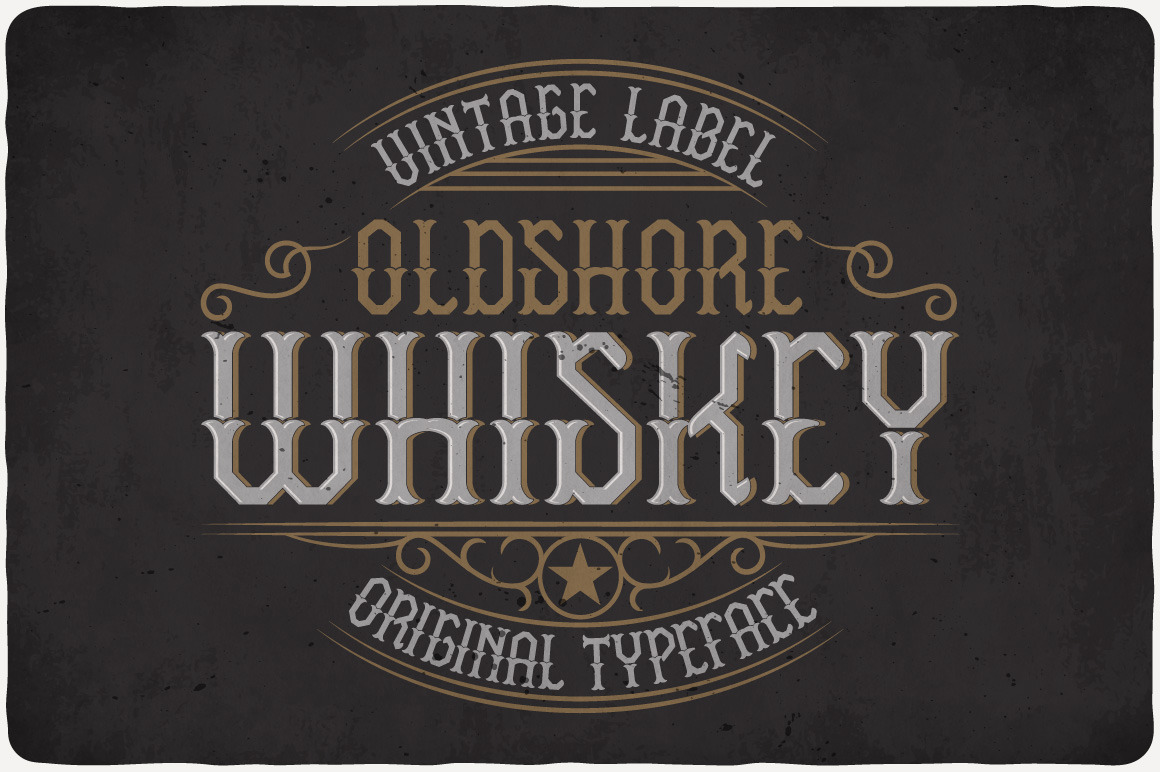
Oldshore Whiskey Typeface
Introducing a vintage look label typeface named "Oldshore Whiskey". It's made in strong and vintage label style. Typeface is good viewed on any labels design.